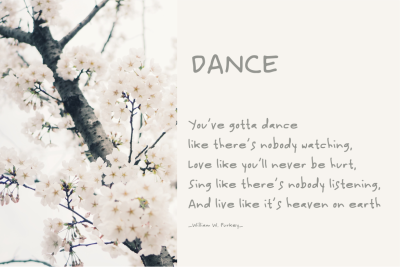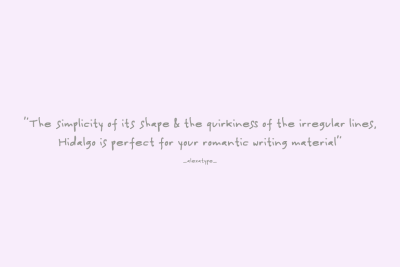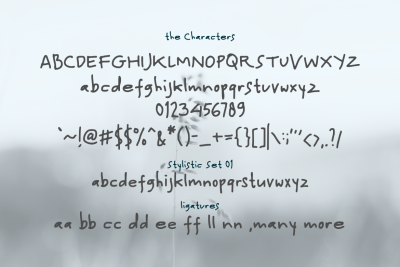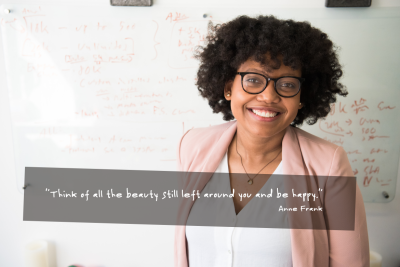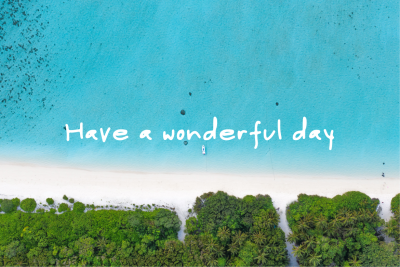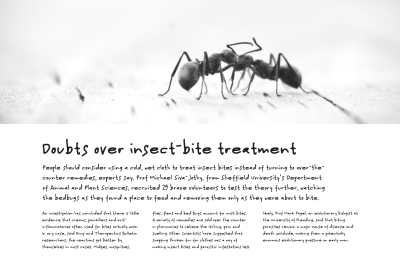
Handwriting Font Hidalgo is a soft, inviting typeface that brings a natural, handwritten feel to any design. Its smooth, slightly rounded strokes give it a gentle and friendly appearance, making it easy on the eyes and approachable to audiences. This font captures the essence of handwritten notes, blending simplicity with warmth. Its carefully crafted letterforms exude a calm, effortless vibe, ideal for projects that aim to feel personal and down-to-earth. With a style that sits comfortably between casual and professional, Hidalgo works well in both creative and functional design settings.
Hidalgoโs design is highly versatile, making it suitable for various applications, from branding to personal projects. The font’s legibility and soft curves make it ideal for longer text passages as well as headings, allowing it to flow naturally across different formats. Its light, airy look pairs well with minimalist layouts, adding a touch of elegance without overpowering the overall design. Moreover, Hidalgoโs relaxed style fits well with both digital and print projects, effortlessly complementing clean and modern design aesthetics.
Handwriting Font Hidalgo Perfect For Whom?
Handwriting Font Hidalgo is perfect for designers, small business owners, and content creators seeking a friendly, approachable font. Its soft, handwritten look is ideal for branding projects that want to connect on a personal level. Small businesses in wellness, lifestyle, and artisanal industries will find Hidalgo especially fitting. For instance, it works beautifully on product labels, logos, and packaging, creating a warm, inviting brand image. Its gentle and authentic feel appeals to customers who value simplicity, quality, and a human touch.
Bloggers, influencers, and social media creators can also benefit from Hidalgoโs aesthetic. The fontโs calm and friendly look is great for creating inviting headers, personal quotes, and engaging posts. Its easy readability makes it suitable for captions and longer text, adding a subtle charm to digital content without distracting from the message. For those looking to create an approachable yet elegant online presence, Hidalgo is a go-to choice.
Event planners and stationery designers will also find Hidalgo useful for invitations, signage, and decor. Its handwritten look adds a personal touch to wedding invitations, thank-you cards, and event programs, making guests feel welcomed and valued. Additionally, Hidalgo is ideal for journaling, scrapbooking, and DIY projects where an authentic, handmade feel is essential. Whether used for personal projects, branding, or social media, Handwriting Font Hidalgo delivers a blend of charm, warmth, and readability that makes it adaptable across various design needs. This font offers a unique way to communicate friendliness and sincerity, helping designs connect with audiences on a deeper level.